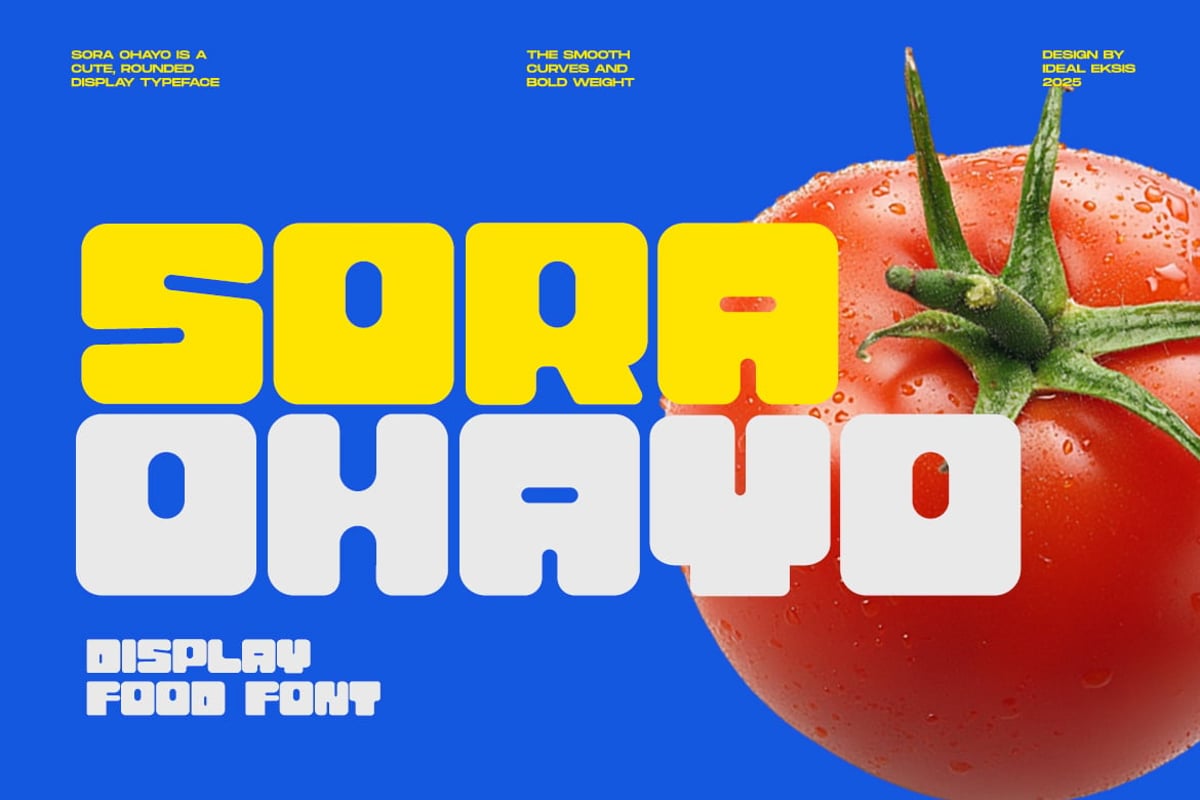
Sora Ohayo - Food Font
Bring adorable kawaii charm to your food branding with this cute, rounded display typeface.
SORA OHAYO features chubby letterforms and a friendly personality inspired by soft shapes and playful cartoon aesthetics. The smooth curves and bold weight ensure excellent readability while maintaining its charming, bubbly attitude that's perfect for creating warm, cheerful designs.
This versatile typeface excels in children's books, kawaii branding projects, character merchandise, and social media graphics that need an inviting, approachable feel.
- Uppercase characters (All Caps)
- Numerals
- Punctuation
Ideal applications:
- Bakery and café branding
- Food and beverage logos
- Restaurant menus and signage
- Coffee shop and donut shop designs
- Food packaging and labels
- Social media food promotions
- Kitchen-themed posters and prints
- Culinary blogs and recipe graphics